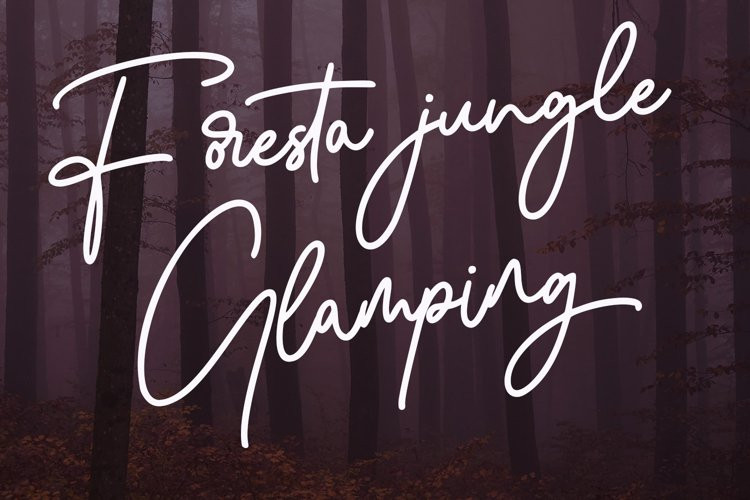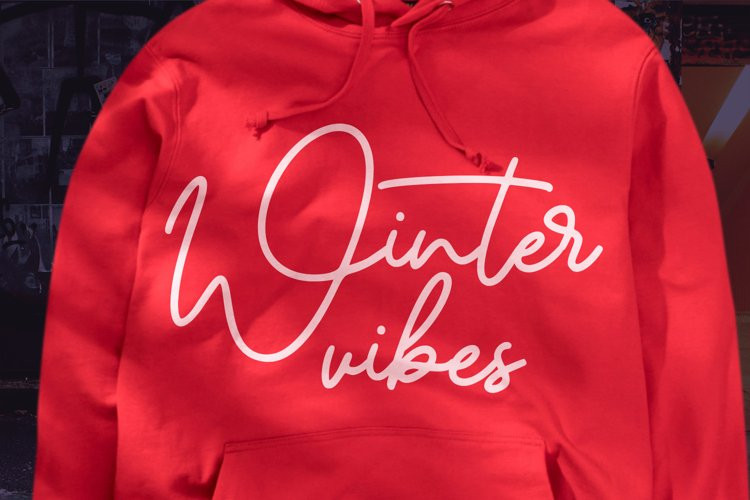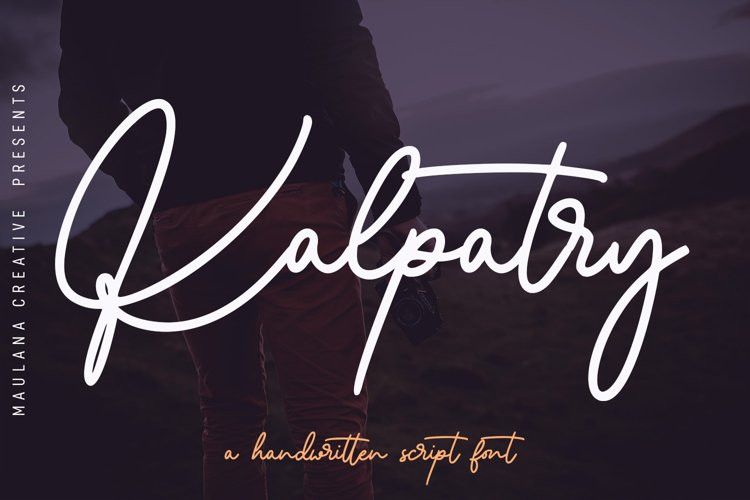
Kalpatry Font
Kalpatry FontKalpatry is a fancy signature script font. With consist light mono-line stroke, fun character with a bit of ligatures and alternates. To give you an extra creative work. Kalpatry font support multilingual more than 100+ language. This font is good for logo design, Social media, Movie Titles, Books Titles, a short text even a long text letter and good for your secondary text font with sans or serif. Make a stunning work with Kalpatry font.